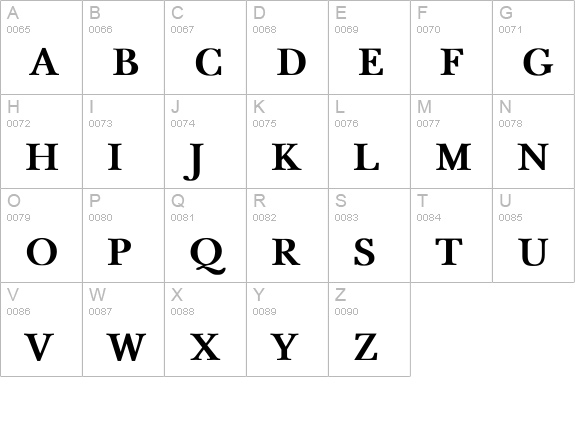
NewBaskerville Bold Font Details
NewBaskerville Bold is a strong, high-contrast variant in the NewBaskerville typeface family \xE2\x80\x94 well suited to headlines, attention-grabbing titles, and strong calls-to-action.
NewBaskerville Bold font is a classic and elegant typeface that exudes sophistication and style. Its bold weight commands attention and adds a touch of luxury to any design project. The strong, confident strokes and balanced proportions make it perfect for headlines, titles, and other display text. This versatile font is ideal for a wide range of applications, from editorial design to branding and packaging. Its timeless appeal ensures that it will never go out of style, making it a valuable addition to any designer's toolkit. Best of all, NewBaskerville Bold font is available for free download at FontsMarket.com. This means you can easily access and use this premium font without any cost, making it a convenient choice for both personal and commercial projects. Don't miss out on this opportunity to elevate your designs with the timeless beauty of NewBaskerville Bold font.